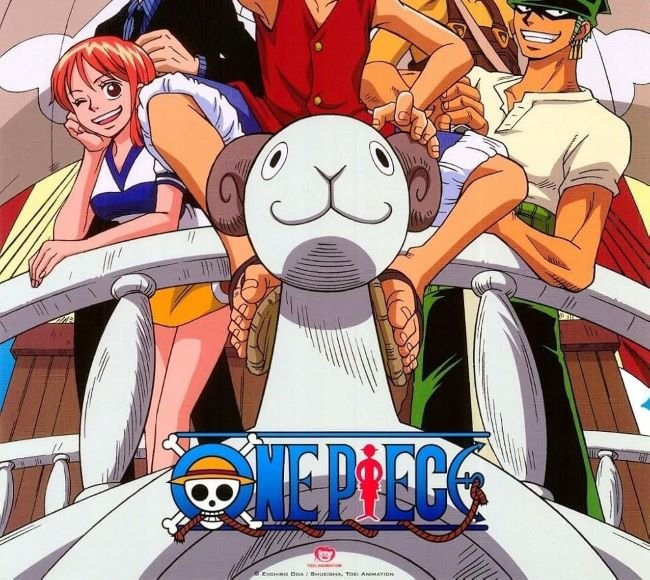
One Piece font — designed by Phantom King Graphics — is the typography of a manga series that has been running since 1997 and shows absolutely no sign of concluding, rendered in bold, cartoonish lettering with exaggerated curves and the joyful visual energy of a story that believes wholeheartedly in adventure, friendship, and the pursuit of an impossible dream. The letterforms practically bounce — they have the dimensional quality of something that wants to leap off the page and follow you down the street — which is exactly correct for a title that has been following Monkey D. Luffy and the Straw Hat Pirates across seas, islands, and legendary battles for nearly three decades. The freely available One Piece Font brings this high-energy pirate-adventure spirit to creative work.